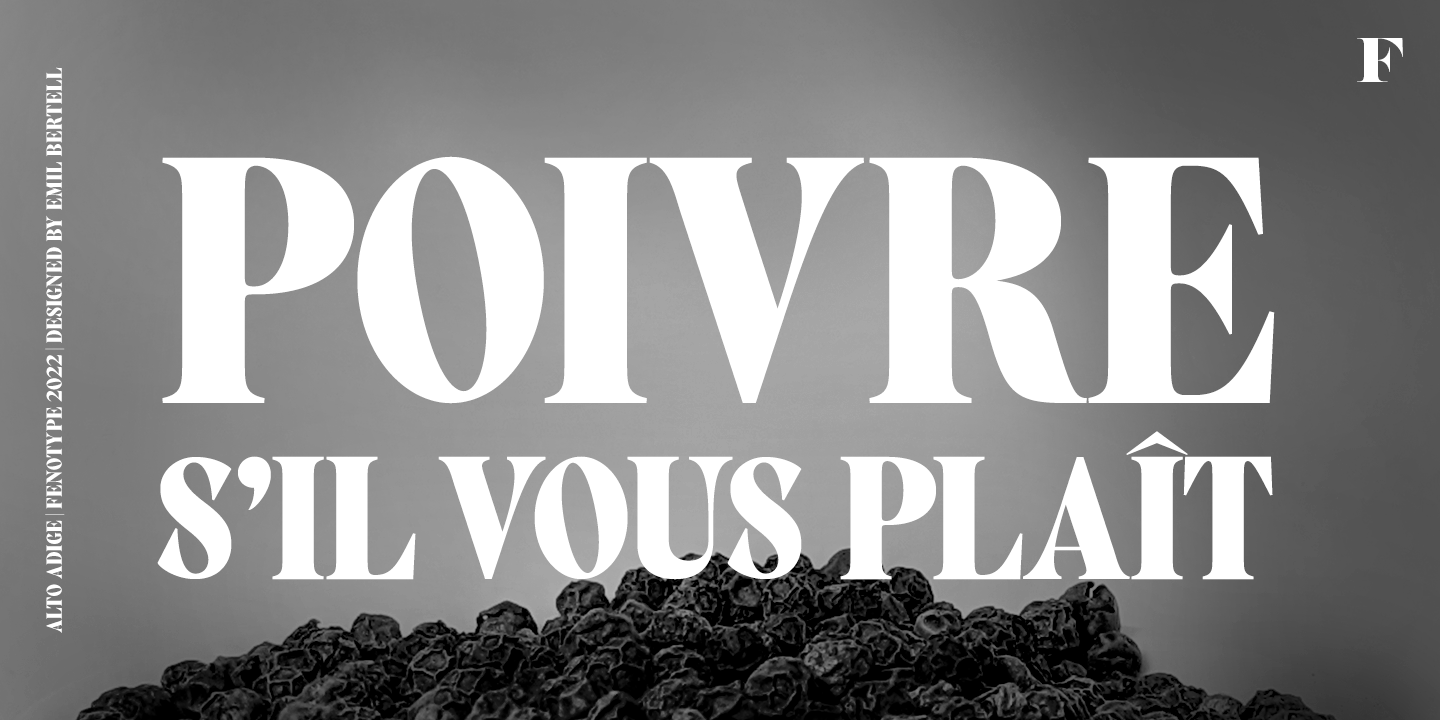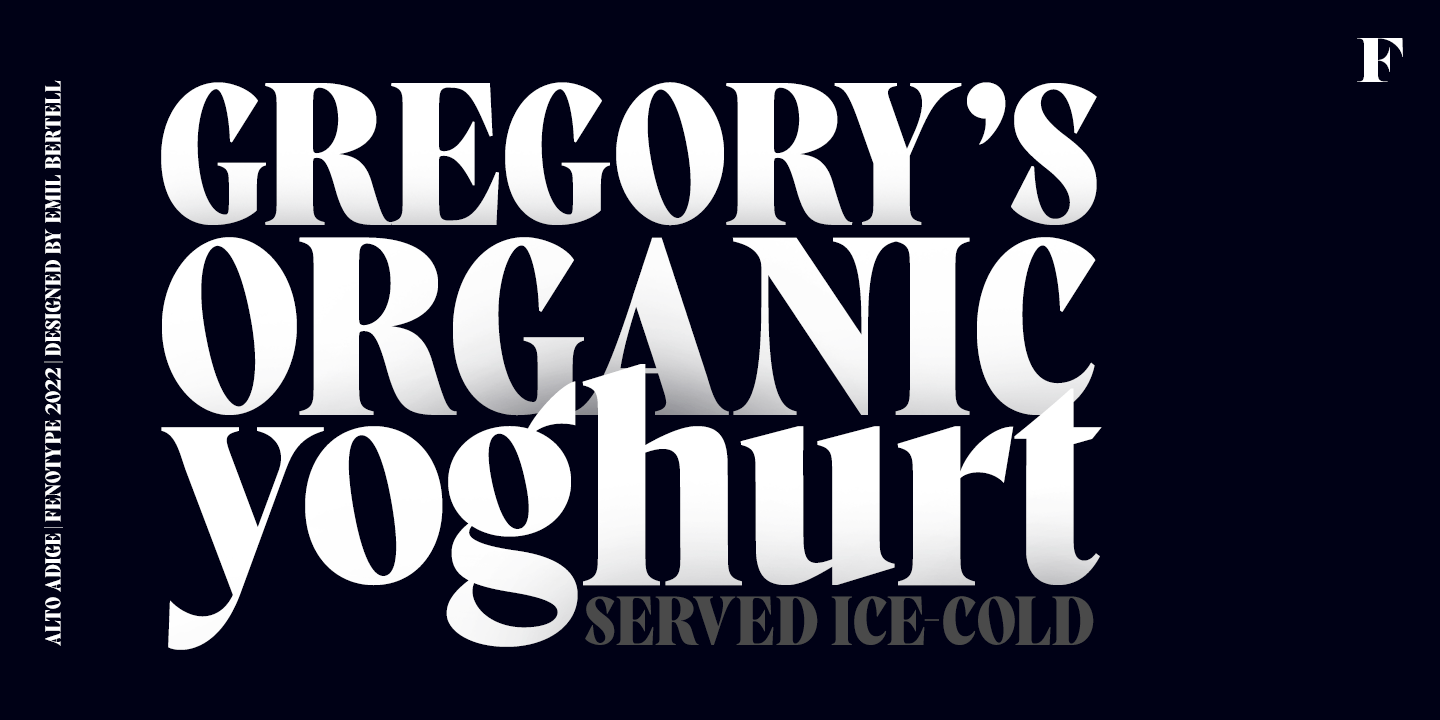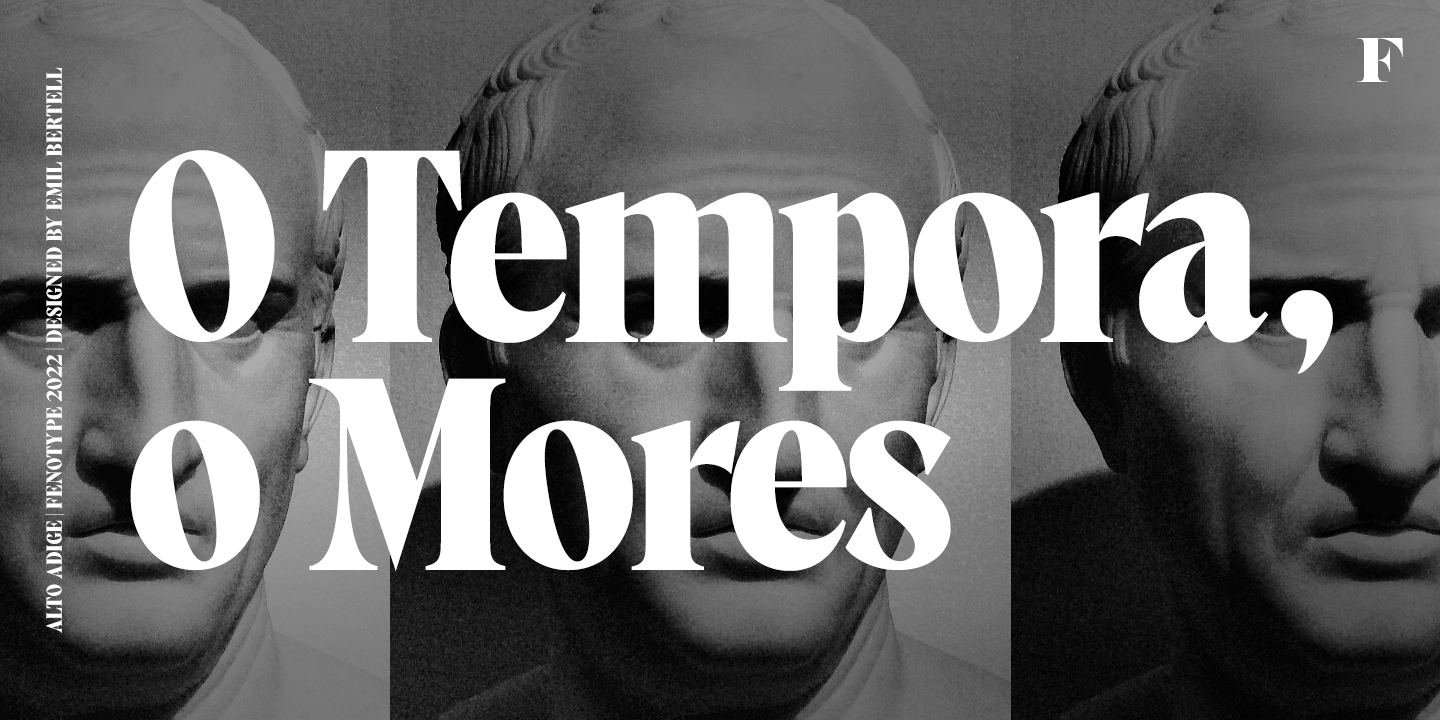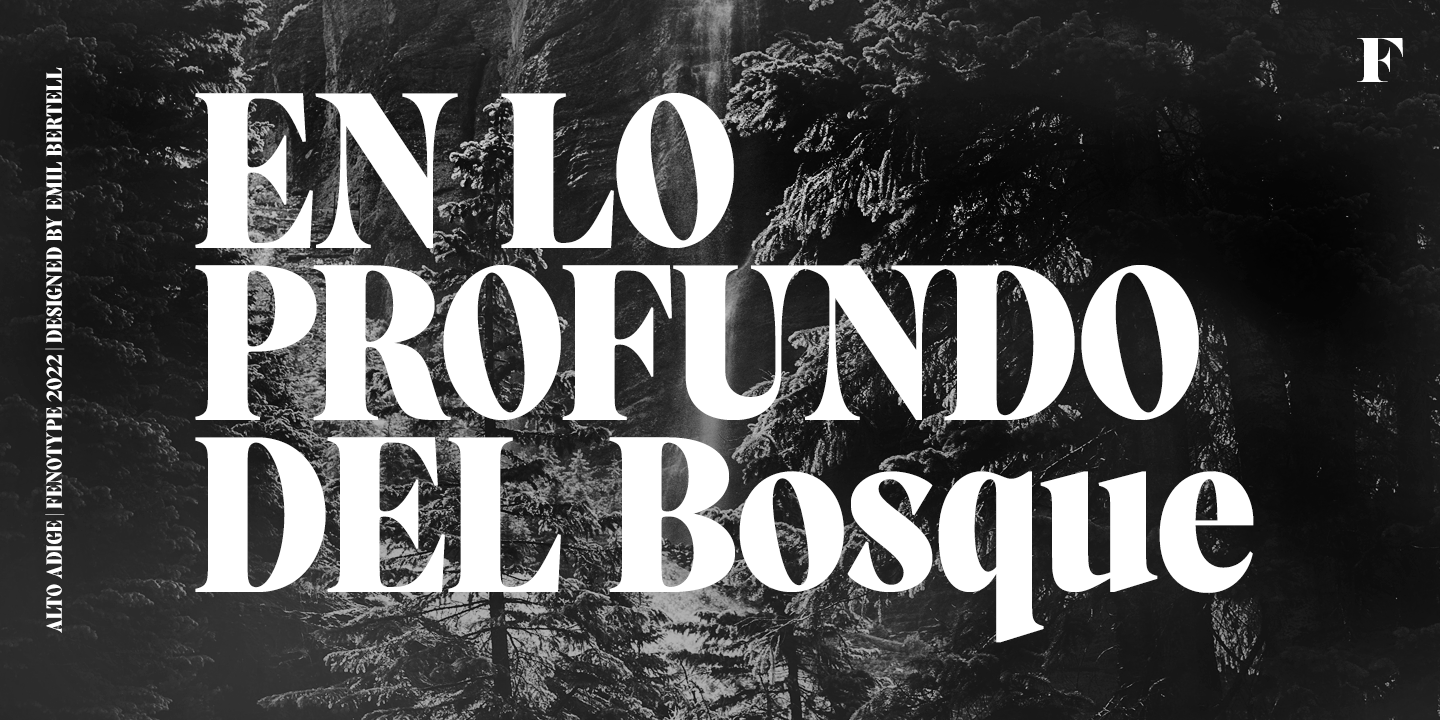
About Alto Adige
Named after Italy\’s northernmost region, Alto Adige is a high-contrast display serif typeface. With its condensed width and bold contrast it is excellent for headlines, packaging, magazines, posters and advertising, among any other display use. Alto Adige…